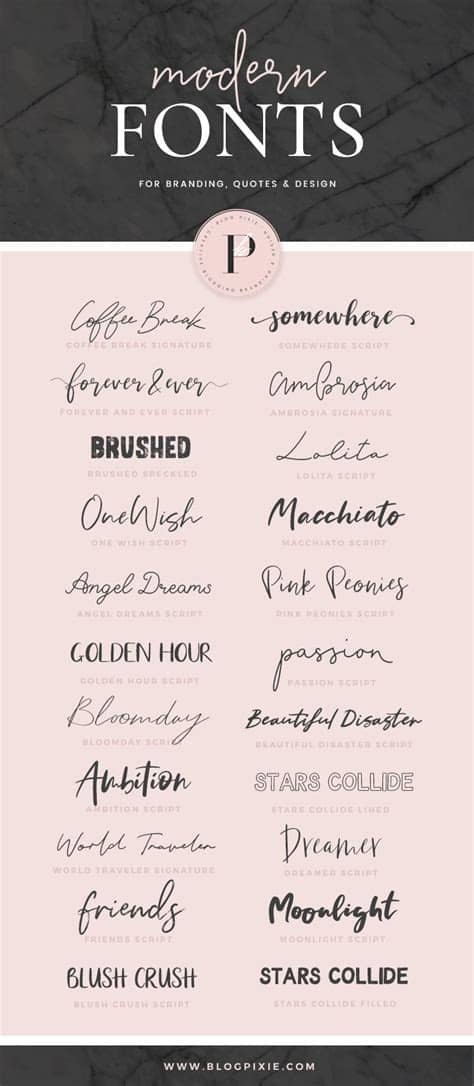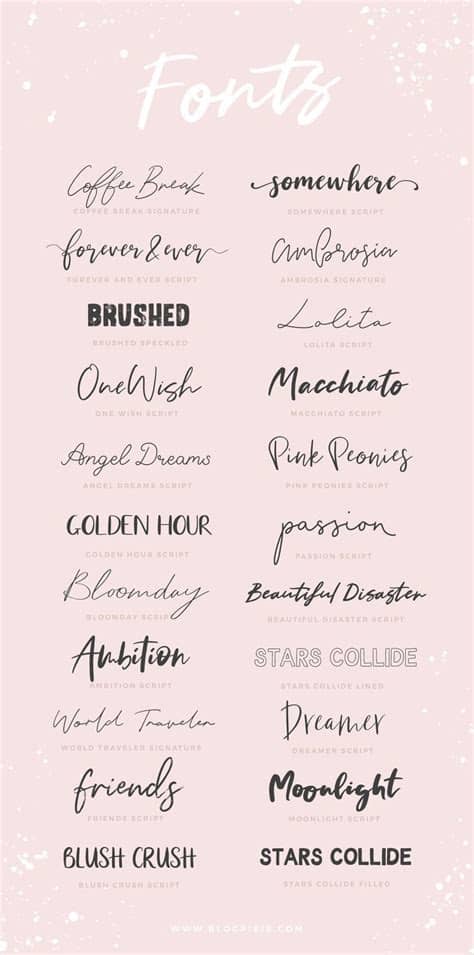
Ambition Script Font Free Download / Ambition & Ink Font Download : We have a huge range of script products available.. 1 style 4.4 217 downloads. Redemption script font (free demo). Quillbacks script font is a modern handwriting calligraphy font. Browse by alphabetical listing, by style, by author or by popularity. In all formats (freight sans pro woff2, freight sans we do not sell fonts and, in most cases, do not know where to buy them.
1 style 4.4 217 downloads. Script fonts are flowing stroke letters based upon handwriting or calligraphy. Script bd script bds script bd diamond script download molly script the something script beauty salon script lumen script saturday script 100 free script font good life script southern script everglow script ellie. Use this font for logos, social media, websites, blogs, instagram, business cards, branding, and more! On this page you can watch preview script category fonts from our designers. Browse by alphabetical listing, by style, by author or by popularity. Ambition is a chic handwritten font with a bouncy look. Preview, download and install the mission script.ttf file.
Preview, download and install the mission script.ttf file. Platform supported unicode macintosh microsoft. We have a huge range of script products available. Script bd script bds script bd diamond script download molly script the something script beauty salon script lumen script saturday script 100 free script font good life script southern script everglow script ellie. Ambition is a chic handwritten font with a bouncy look. Free mission script fonts overview. Includes otf and ttf files. Script typefaces are based upon the varied and often fluid stroke created by handwriting, pretty much like the cursive fonts just typically more elegant.
For personal and commercial uses. They are widely used for text to give expressive or personal touch. They are organized into highly regular formal types similar to cursive writing and looser, more casual scripts. Script bd script bds script bd diamond script download molly script the something script beauty salon script lumen script saturday script 100 free script font good life script southern script everglow script ellie. In fact, you might find that there are so many choices that you. On this page you can watch preview script category fonts from our designers. Script typefaces are based upon the varied and often fluid stroke created by handwriting, pretty much like the cursive fonts just typically more elegant. Use this font for logos, social media, websites, blogs, instagram, business cards, branding, and more! The style of this font are casual, lovely, contemporary, modern, elegant, luxury and classic brush font. Some scripts are more formal like elegant calligraphy, while others are casual like cursive handwriting. Script fonts are flowing stroke letters based upon handwriting or calligraphy. Redemption script font (free demo). For all questions regarding the purchase and use of fonts in your projects, please.